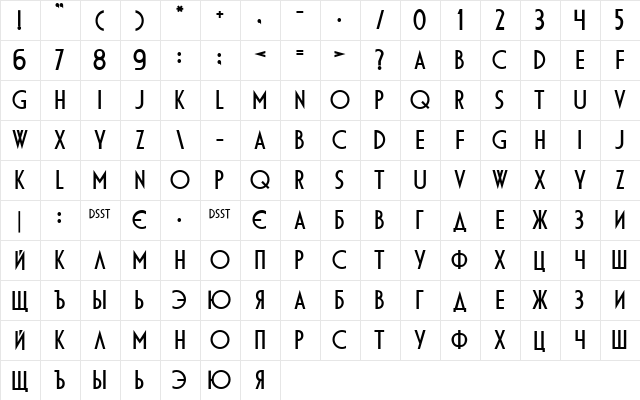
ft22 Normal
| Year | 1970 |
Design Context for ft22 Typeface
ft22 is a composed and adaptable typeface that performs quietly and consistently across a wide range of design contexts.